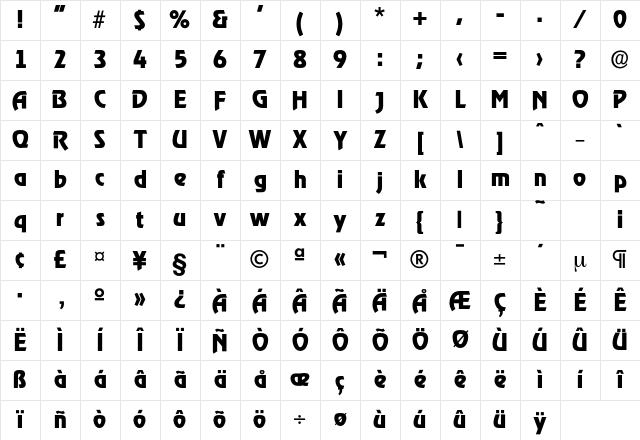
Ragtime-Bold Regular
Complete Ragtime-Bold Regular glyph index. Displaying only characters natively supported by Ragtime-Bold Regular font.
Design Context for Ragtime-Bold
Ragtime-Bold is a composed and adaptable typeface that performs quietly and consistently across a wide range of design contexts. Its bold stroke weight gives it real presence on the page.